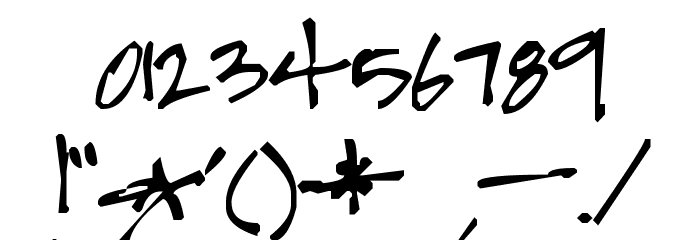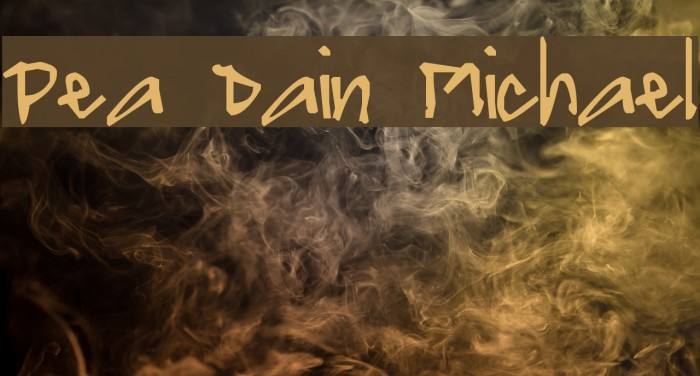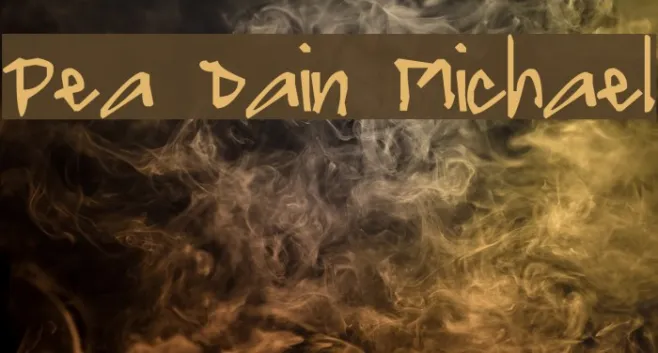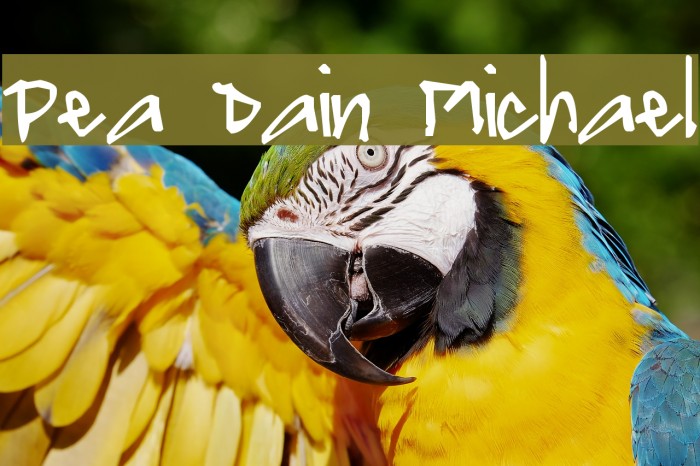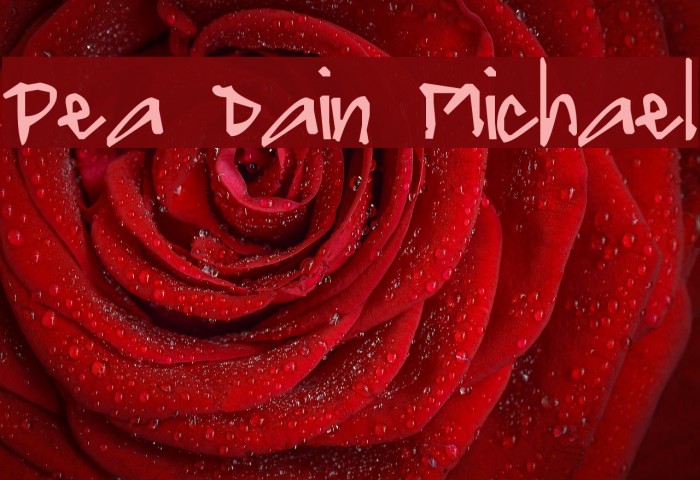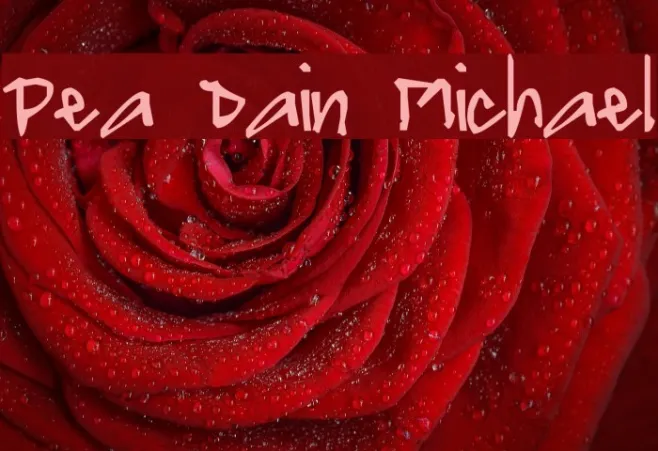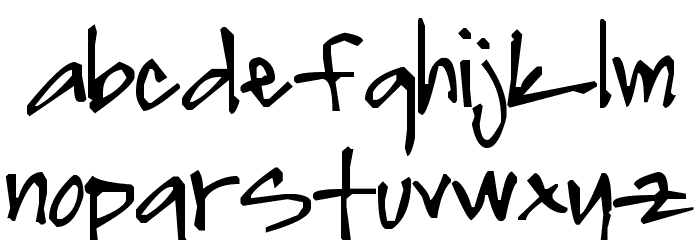
Pea Dain Michael Font
This font exhibits a lively and dynamic handwritten style, characterized by its bold and expressive strokes. The letters are slightly irregular, giving it a personal and informal feel. The uppercase and lowercase letters maintain a consistent style, with a playful yet legible appearance. The numbers and special characters follow the same energetic design, making them stand out. This font is ideal for projects that require a personal touch, such as invitations, greeting cards, or creative branding. Its unique style captures attention while remaining readable.
A bold, dynamic handwritten font with expressive strokes.
• Proposed Projects: Ideal for invitations, greeting cards, creative branding, and personal projects.
• Category: Handwritten
• Bold: Yes
• Italic: No
• Weight: Bold
• Width: Normal
• Character Spacing: Normal
• Contrast: Medium
• Overall Style: Decorative
• Use Case: Headlines, Logos